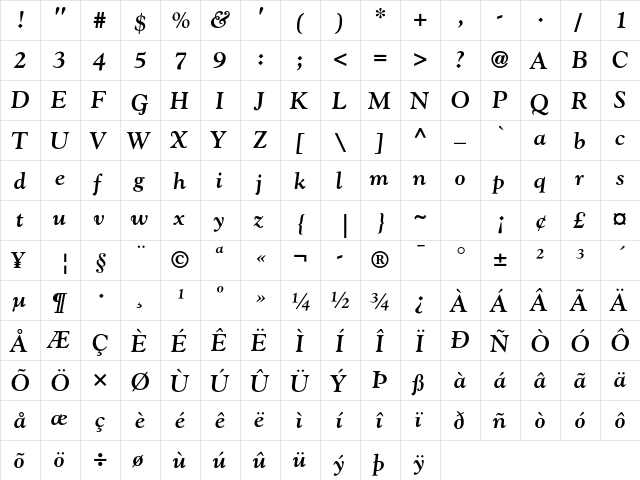
Goudy Oldstyle Std Bold Italic Font Preview
| Designer | Frederic W. Goudy, Morris Fuller Benton |
Design Context for Goudy Oldstyle Std Typeface
Goudy Oldstyle Std carries the refined structure of traditional serif typography, with bracketed terminals and considered proportions that communicate credibility and craft. The dynamic lean of this cut emphasises speed and emphasis in any layout. Its bold stroke weight gives it real presence on the page.
Pro Tip: Use Goudy Oldstyle Std for editorial body copy and considered headline work. Pair with a neutral sans for UI elements or captions to create a classic hierarchy.